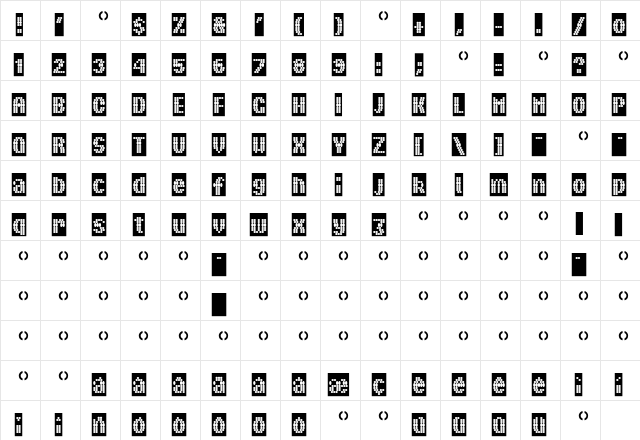
Boules Regular
Design Context for Boules Typeface
Boules is a composed and adaptable typeface that performs quietly and consistently across a wide range of design contexts.